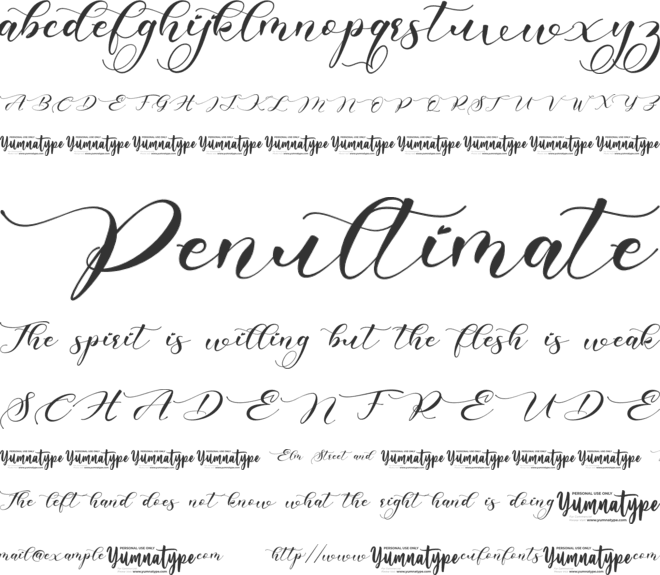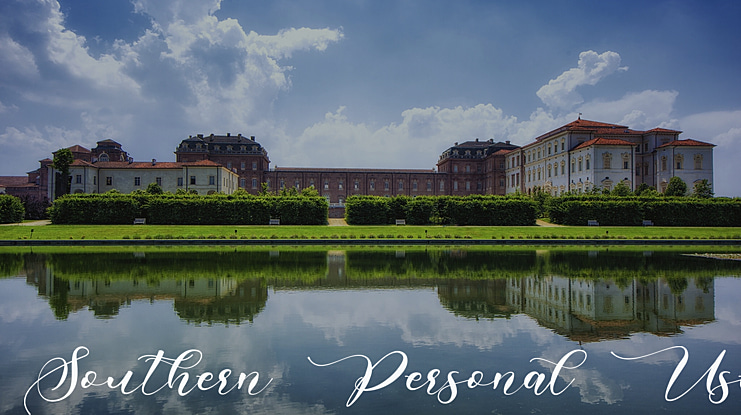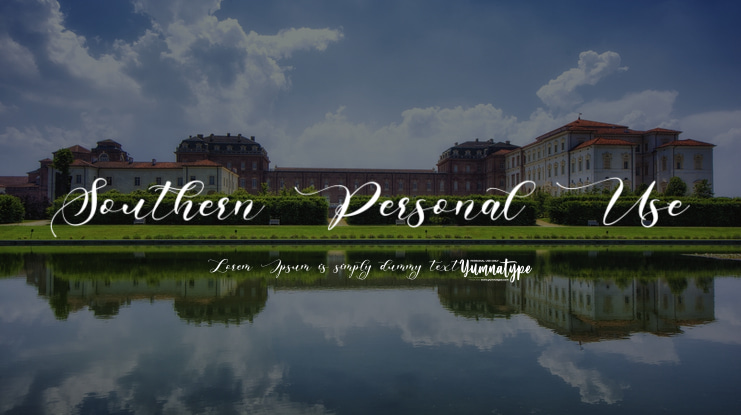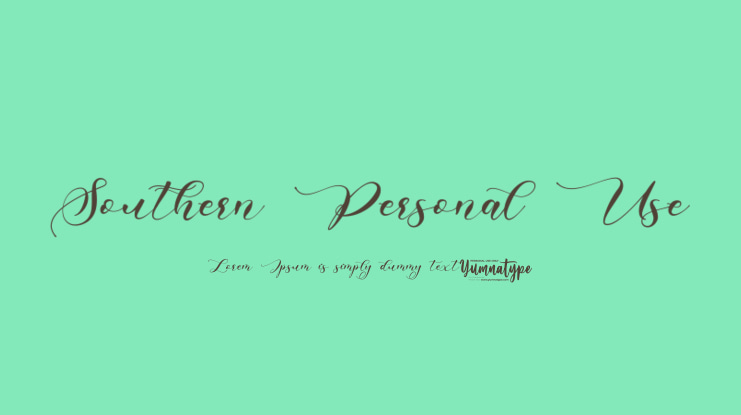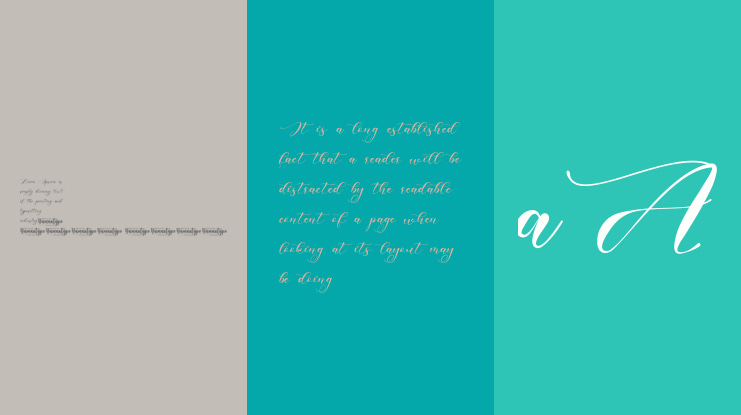
Say hello to Southern Script.
Southern is a beautiful and modern script.
It brings a beautiful and modern typeface that best used for weddings, branding, logotype, and quotes.